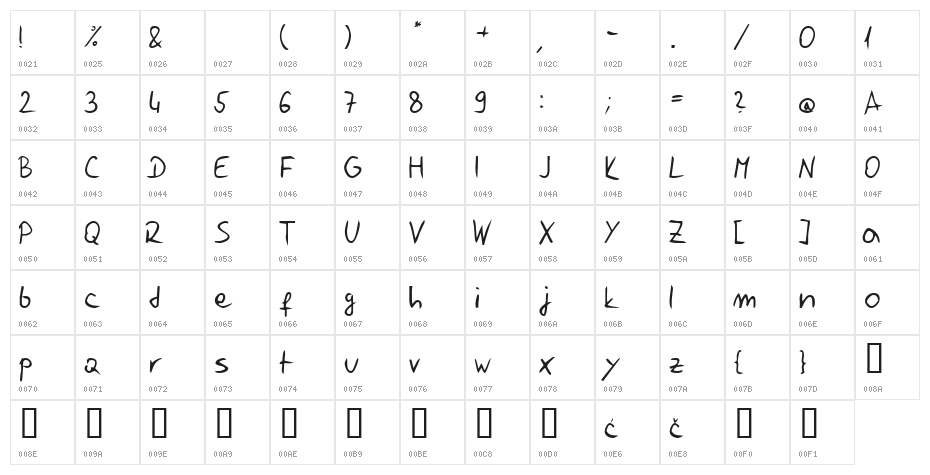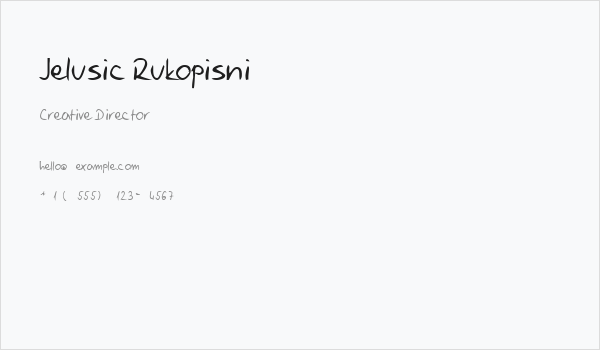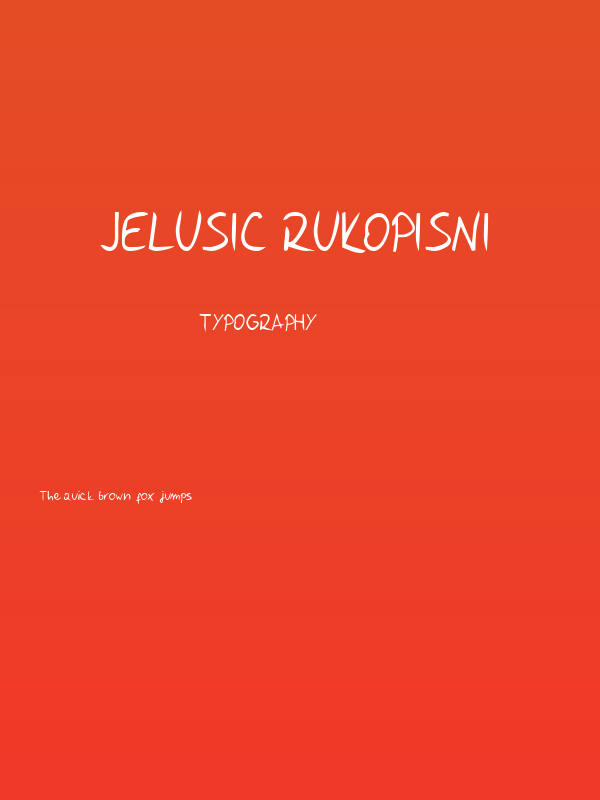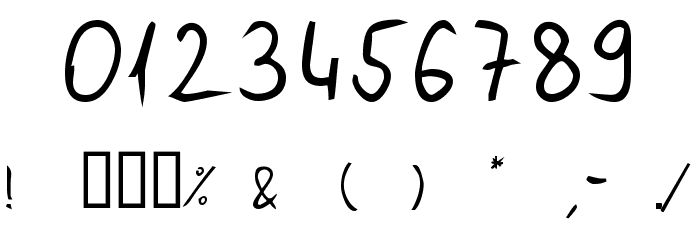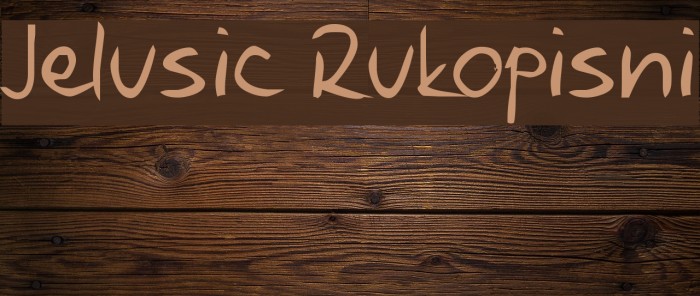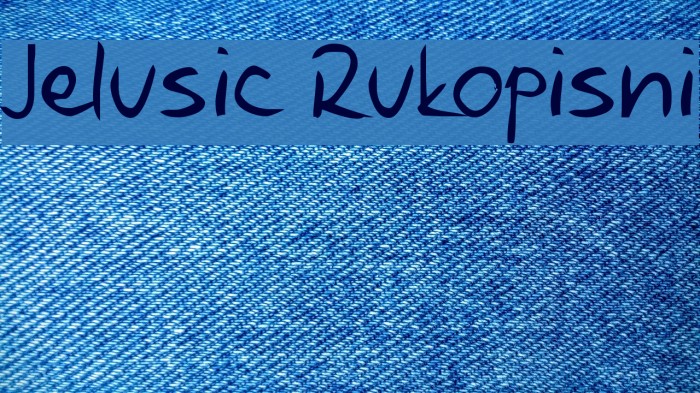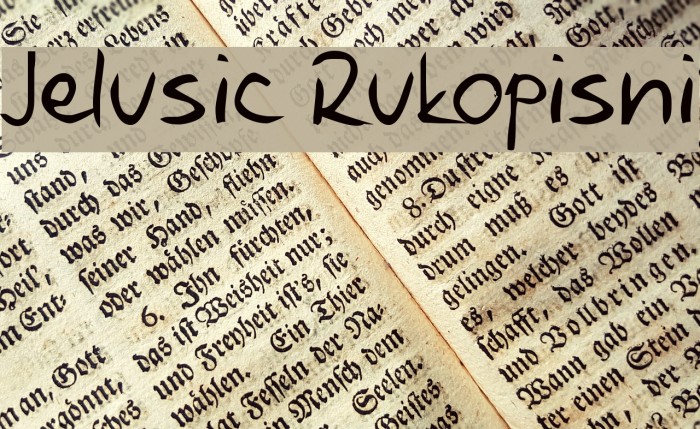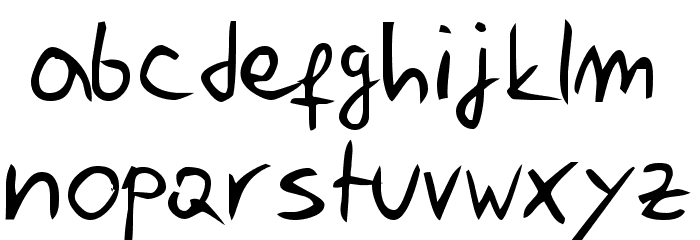
Jelusic Rukopisni Font
Jelusic Rukopisni Description
This font features a playful and casual handwritten style, characterized by its uneven strokes and informal appearance. The letters are slightly slanted, giving a dynamic and lively feel. The uppercase letters are bold and prominent, while the lowercase letters maintain a consistent flow, enhancing readability. The numbers are clear and distinct, matching the overall style of the alphabet. Special characters are creatively designed, adding to the font's unique personality. This font exudes a sense of creativity and spontaneity, making it suitable for projects that require a personal touch.
| Overall Style | Casual, Playful |
| Use Case | Logos, Invitations, Creative projects |
| Proposed Projects | Ideal for greeting cards, personal blogs, creative branding, and informal invitations. |